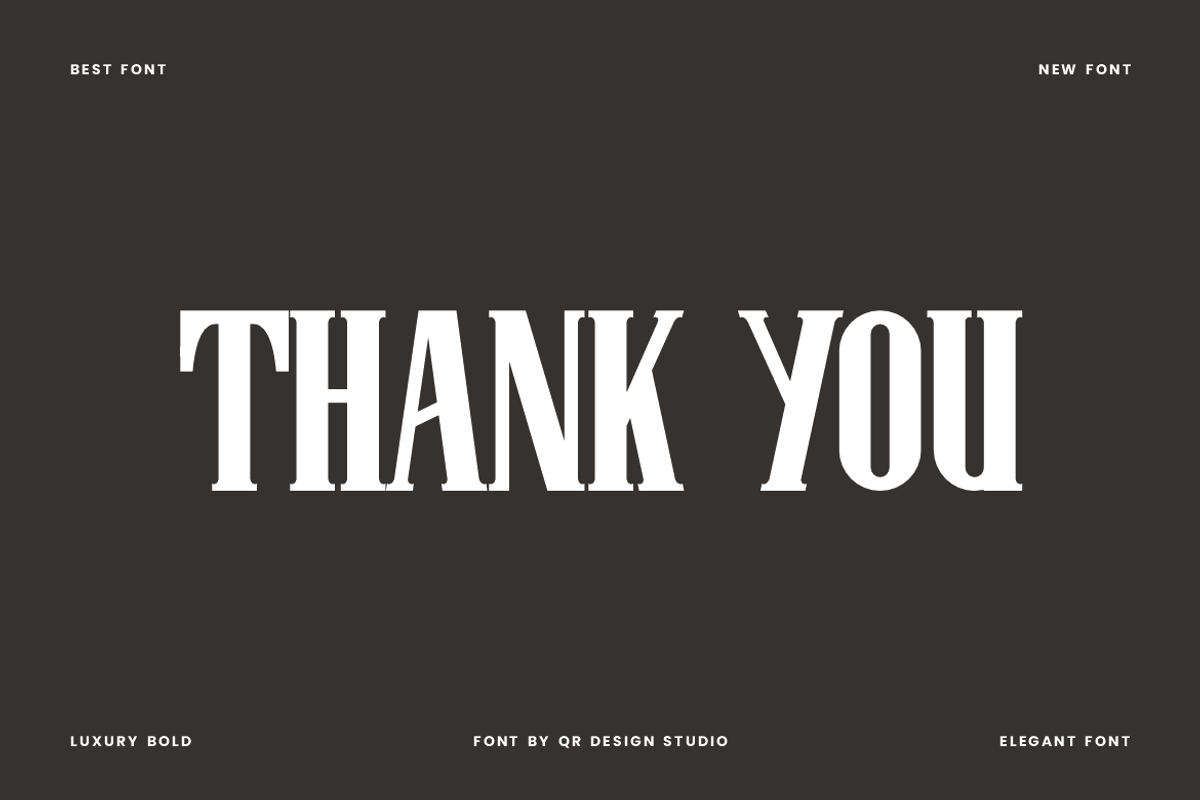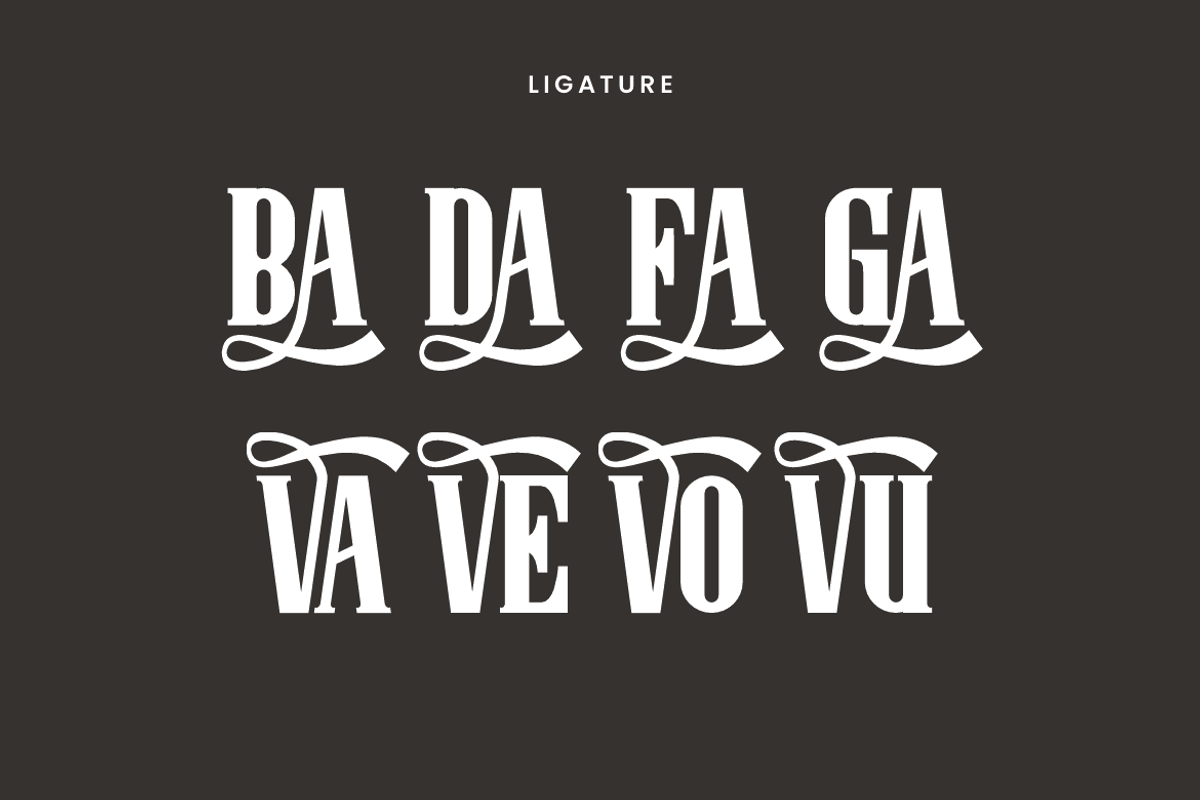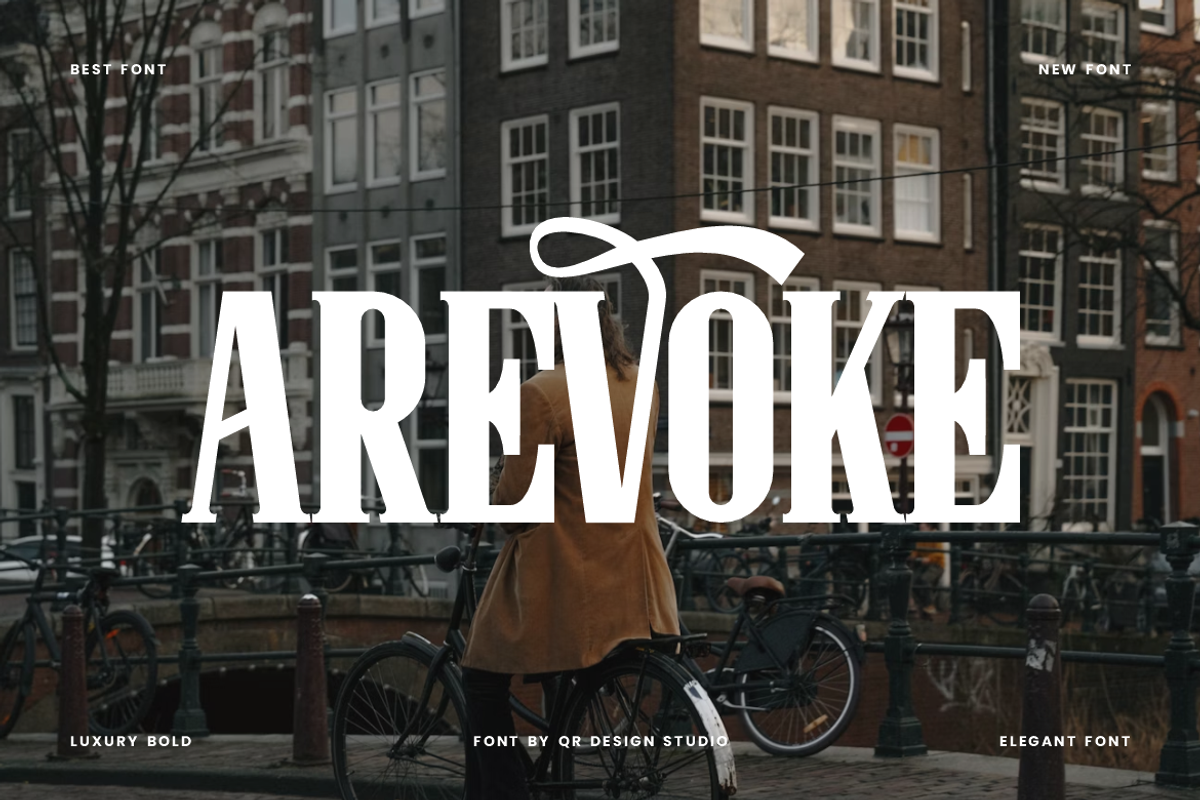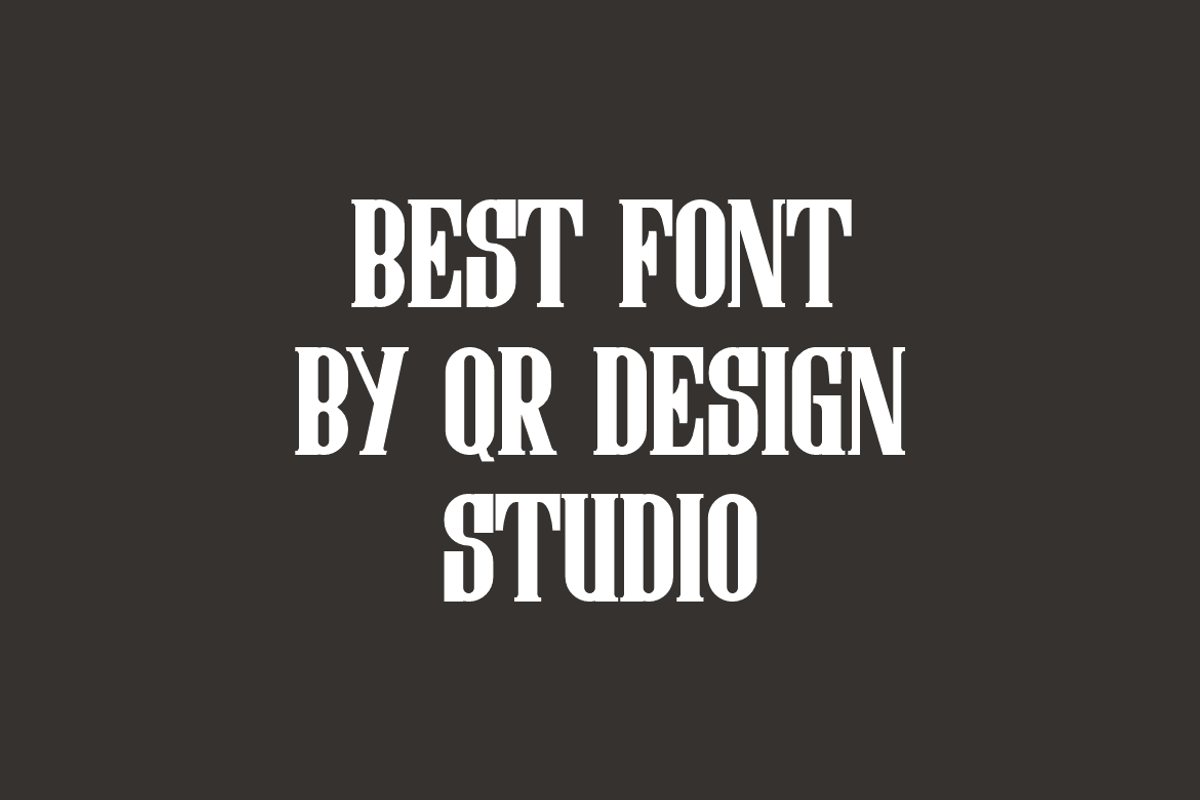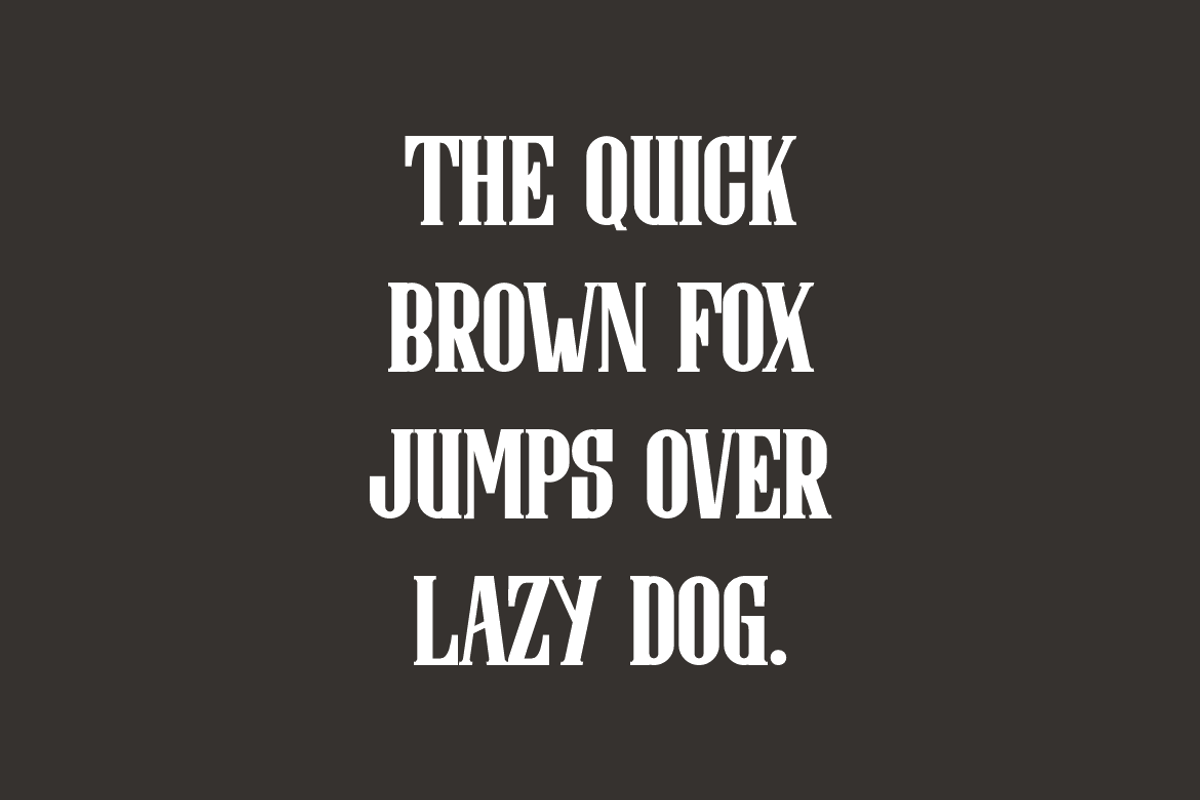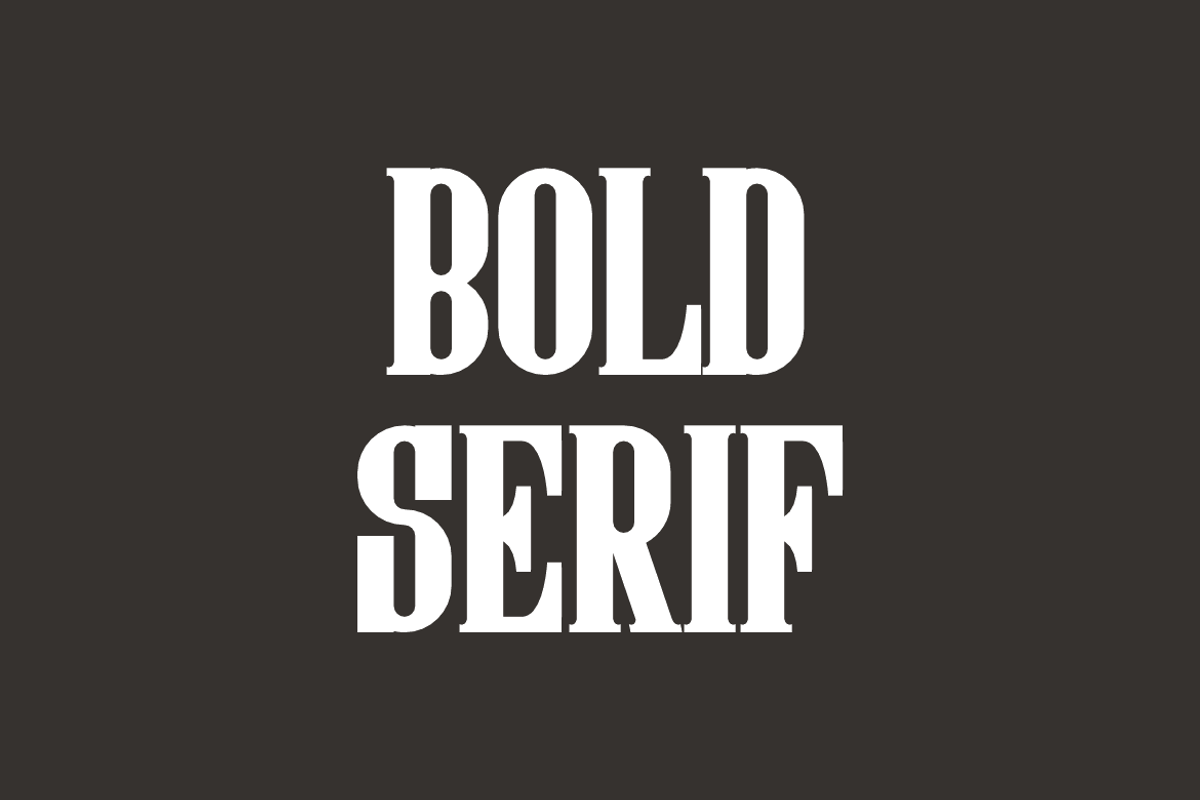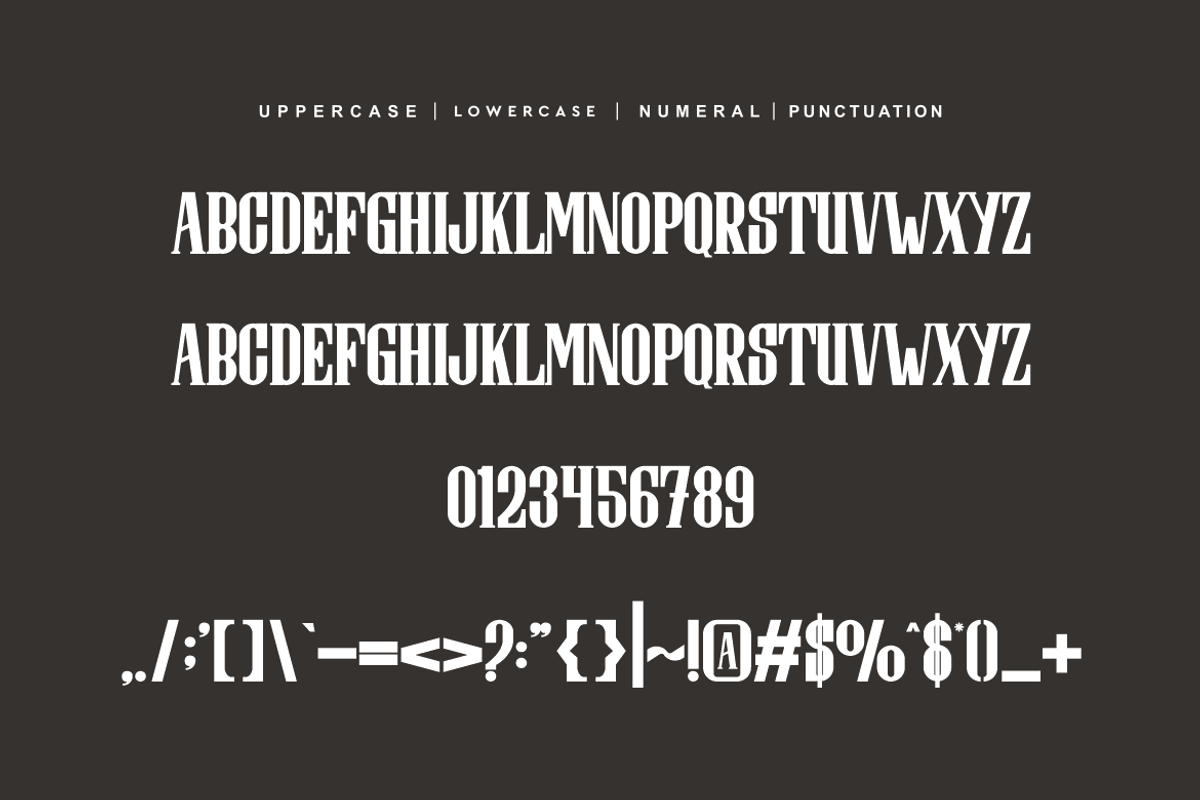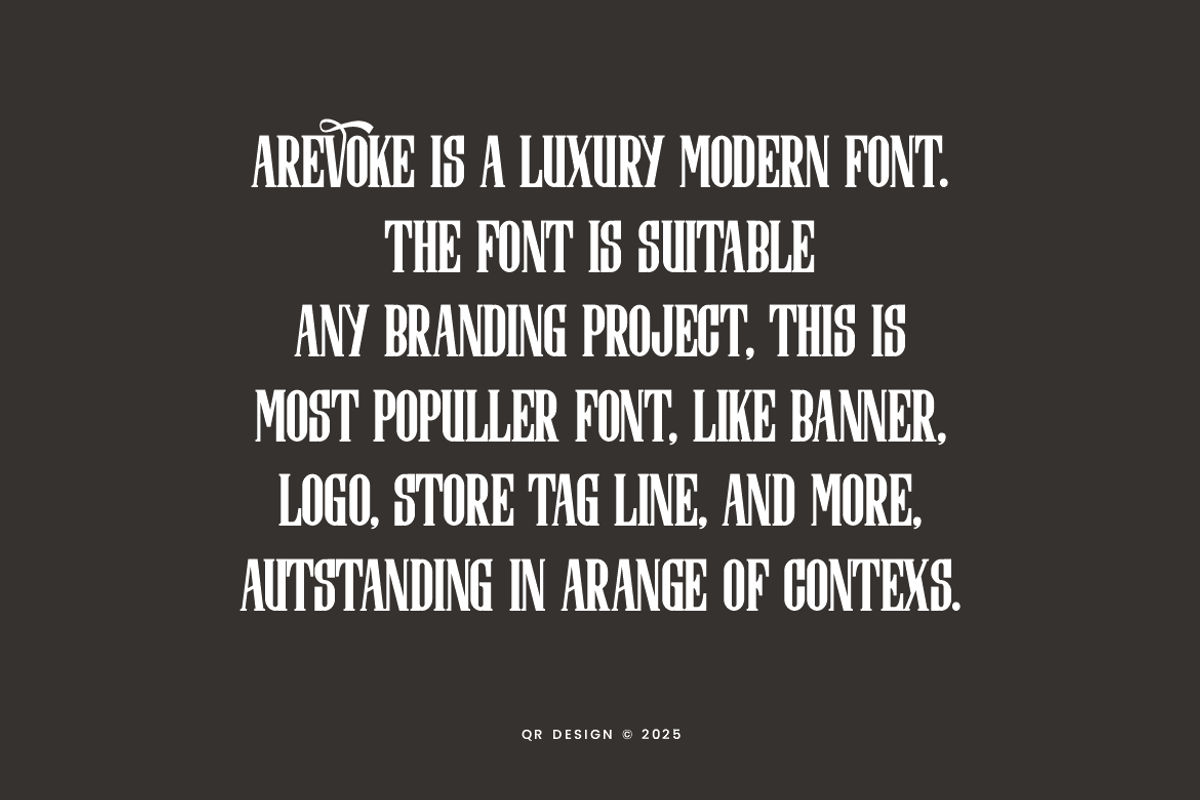
Arevoke - Bold Serif Font
Arevoke Font is a serif and authentic display font. The font is suitable for any branding project like poster, logo, stylish, and many more. Outstanding in a wide range of contexts.